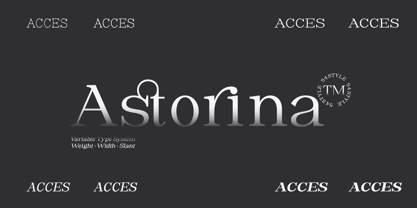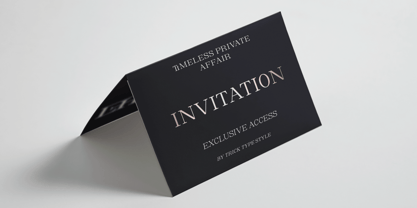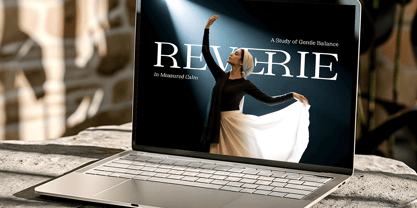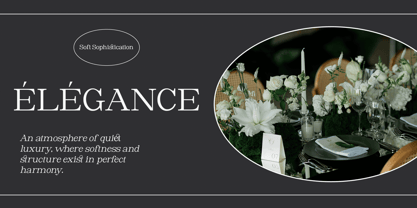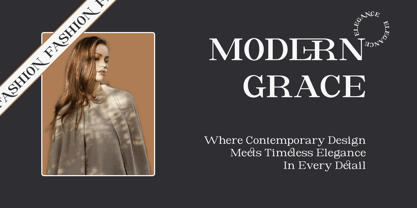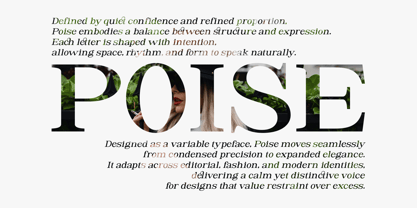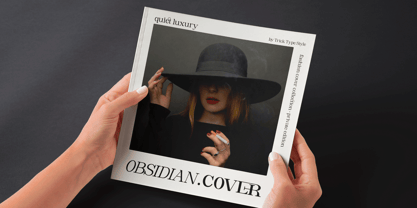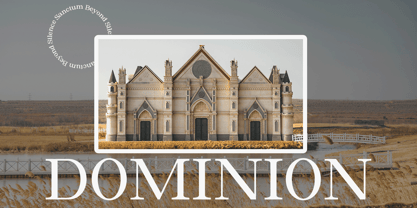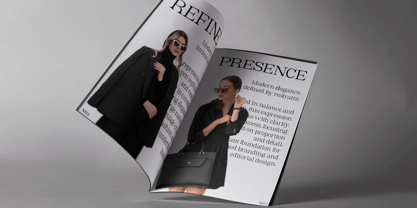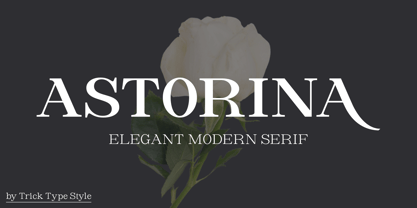
Astorina
by Trick Type Style
The Astorina Font Family was designed by Rizki Ramadhan and published by Trick Type Style. Astorina contains 54 styles and family package options. More about this family
Astorina is a modern serif typeface crafted with elegance and clarity in mind. Inspired by contemporary editorial design and timeless fashion aesthetics, it combines clean structures with refined serif details to create a sophisticated and versatile visual tone. With balanced proportions and subtle contrast, Astorina delivers strong readability while maintaining a soft, luxurious character. It performs beautifully in headlines, editorial layouts, branding, and premium marketing materials. Designed for both print and digital use, Astorina is ideal for fashion, beauty, lifestyle, and refined brand identities that seek a modern yet timeless presence.
Designers: Rizki Ramadhan
Foundry: Trick Type Style